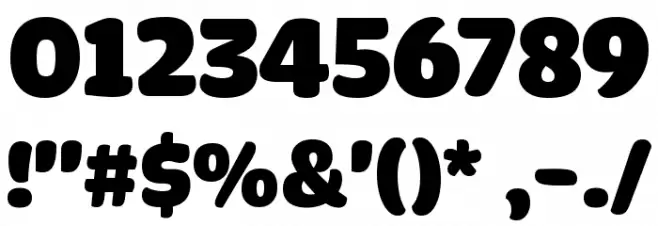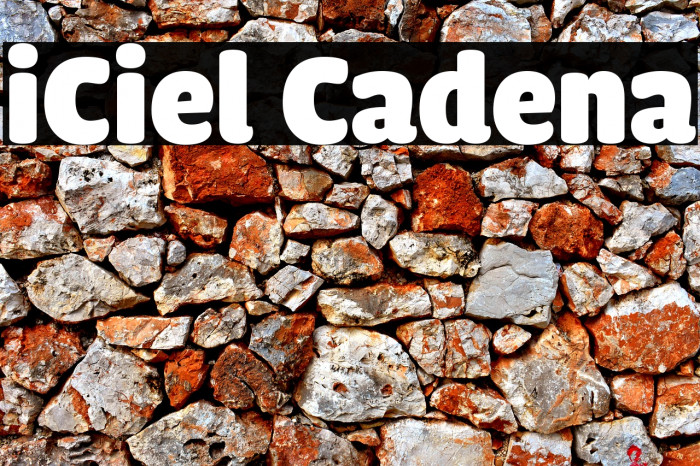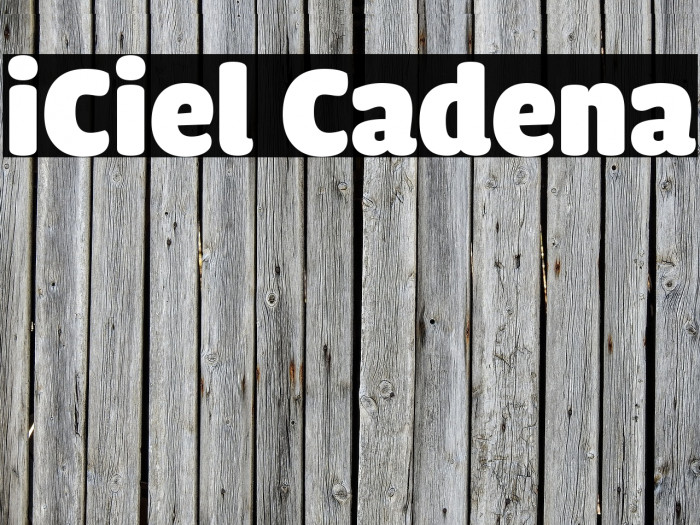
iCiel Cadena Font
iCiel Cadena Description
This font features a bold and rounded style, characterized by thick strokes and smooth curves. The letters are uniformly wide, giving it a strong and impactful appearance. The uppercase and lowercase letters maintain a consistent weight, contributing to its cohesive look. The numerals and special characters are designed to match the boldness of the alphabet, ensuring uniformity across all characters. This font's rounded edges and substantial weight make it highly legible and visually striking, suitable for various design applications.
A bold, rounded font with thick strokes and smooth curves from Uncategorized fonts.